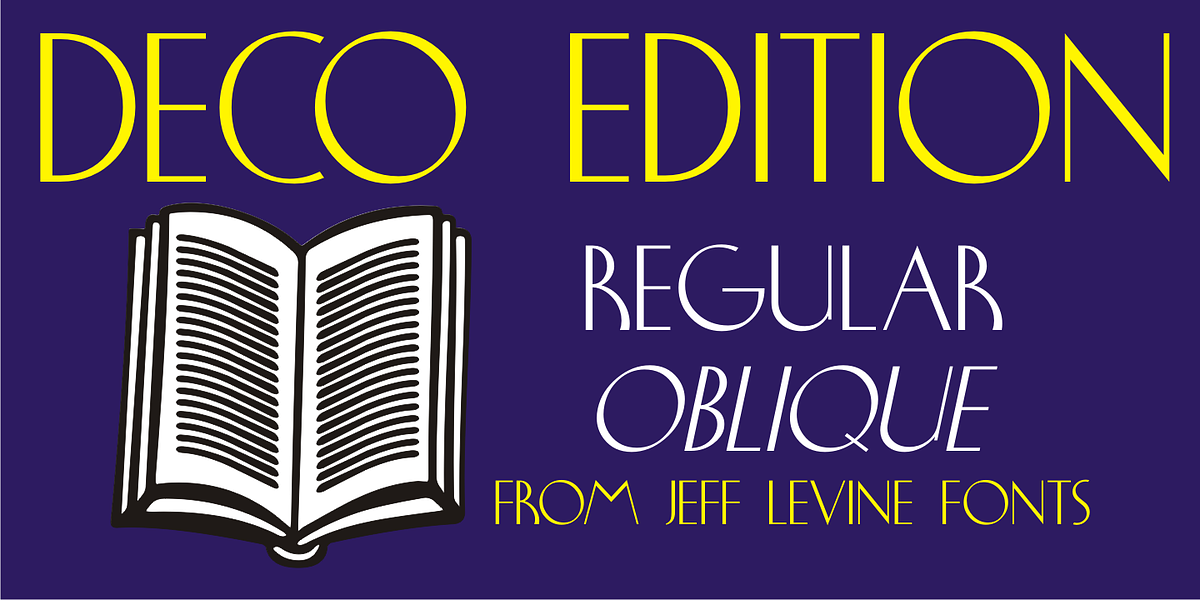
Deco Edition JNL
Deco Edition JNL gets its inspiration from the hand-lettered title of a 1943 anthology of musical compositions for schools entitled “Junior Laurel Songs - Teacher’s Edition”, and is available in both regular and oblique versions.